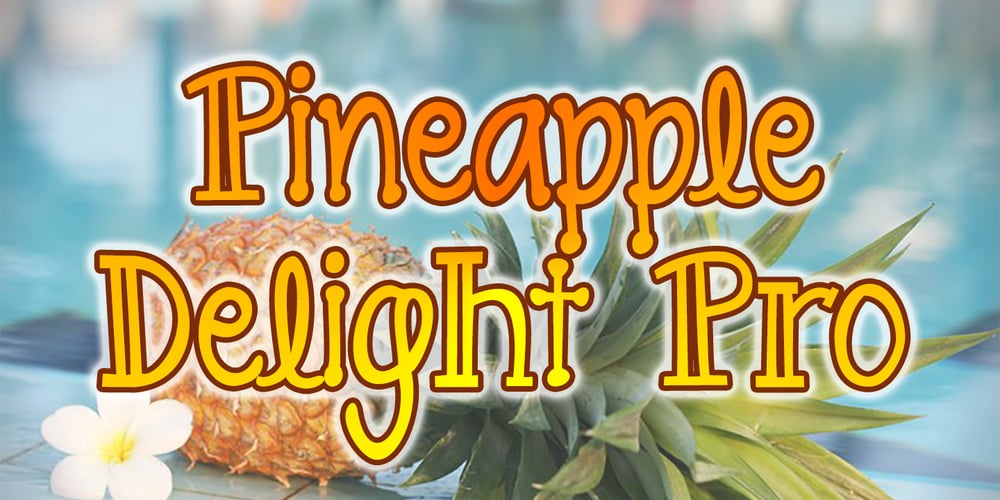
Pineapple Delight Pro
Pineapple Delight Pro font
Pineapple Delight Pro Font Family was designed by Roger S. Nelsson, Kimberly Geswein and published by CheapProFonts. Pineapple Delight Pro contains 1 styles and family package options. This font has a whimsical mix of four kinds of handwritten lettering: plain, looped, blotched and stylish double lined. The playful letter mixture really livens up the text. Cute. Perfect for scrapbooking 🙂 ALL fonts from CheapProFonts have very extensive language support: They contain some unusual diacritic letters (some of which are contained in the Latin Extended-B Unicode block) supporting: Cornish, Filipino (Tagalog), Guarani, Luxembourgian, Malagasy, Romanian, Ulithian and Welsh. They also contain all glyphs in the Latin Extended-A Unicode block (which among others cover the Central European and Baltic areas) supporting: Afrikaans, Belarusian (Lacinka), Bosnian, Catalan, Chichewa, Croatian, Czech, Dutch, Esperanto, Greenlandic, Hungarian, Kashubian, Kurdish (Kurmanji), Latvian, Lithuanian, Maltese, Maori, Polish, Saami (Inari), Saami (North), Serbian (latin), Slovak(ian), Slovene, Sorbian (Lower), Sorbian (Upper), Turkish and Turkmen. And they of course contain all the usual “western” glyphs supporting: Albanian, Basque, Breton, Chamorro, Danish, Estonian, Faroese, Finnish, French, Frisian, Galican, German, Icelandic, Indonesian, Irish (Gaelic), Italian, Northern Sotho, Norwegian, Occitan, Portuguese, Rhaeto-Romance, Sami (Lule), Sami (South), Scots (Gaelic), Spanish, Swedish, Tswana, Walloon and Yapese.